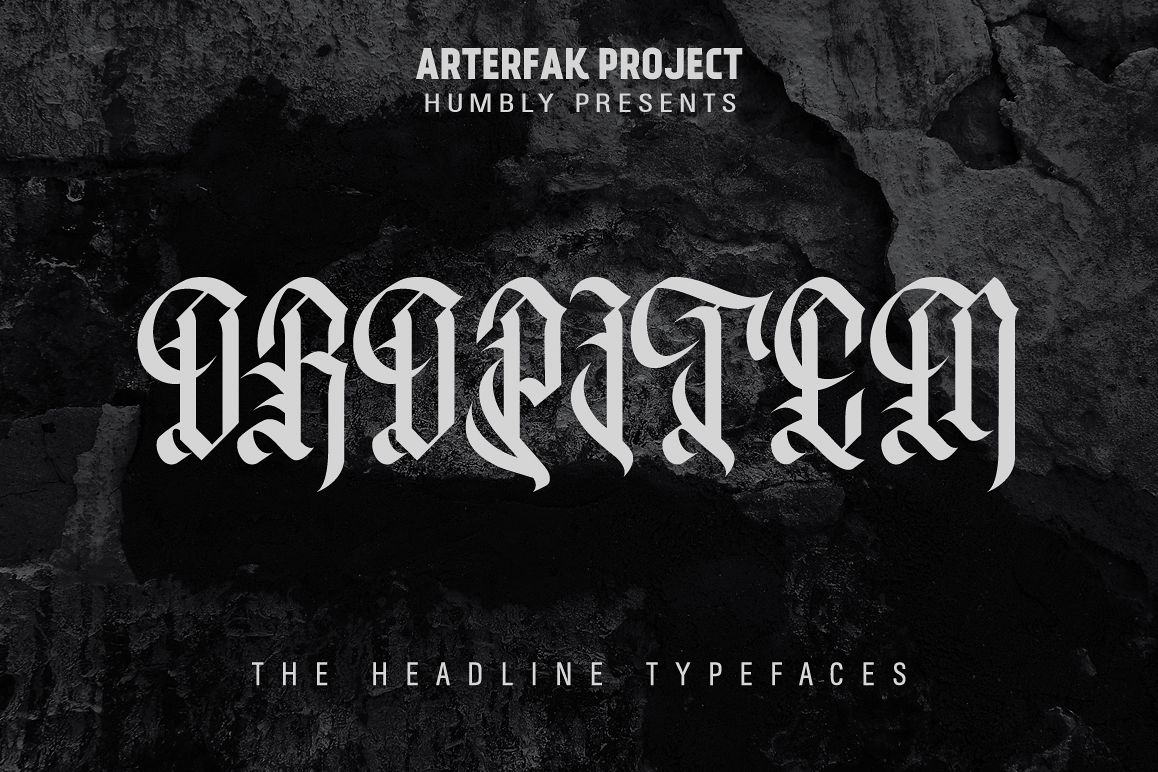
Oropitem Typeface
Greetings and introducing “Oropitem Typeface” an experimental typeface based on gothic style and penmanship. Already tested in Adobe Illustrator, Adobe Photoshop, Adobe Indesign, CorelDraw and etc.
Oropitem Typeface
By Arterfak Project